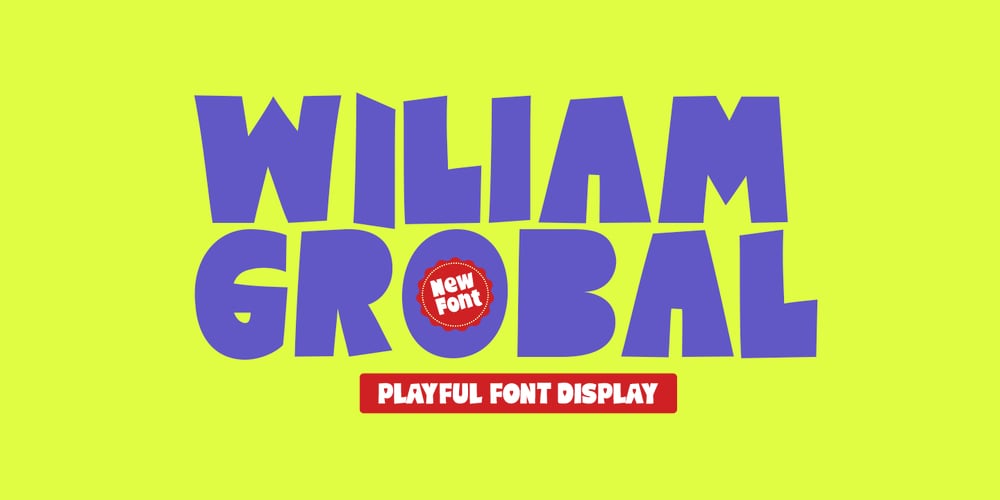
Wiliam Grobal Font Family was designed by khaidir and published by Gatype. Wiliam Grobal contains 1 styles and family package options. The latest Wiliam Grobal, our new and fun font collection. It combines modern, fun, and formal together. It contains so many alternatives and binders that you can use them to have more fun in your projects. is ideal for branding or packaging projects that require a unique and fun feel.To access alternative glyphs, you need a program that supports OpenType features such as Adobe Illustrator CS and Adobe Indesign.